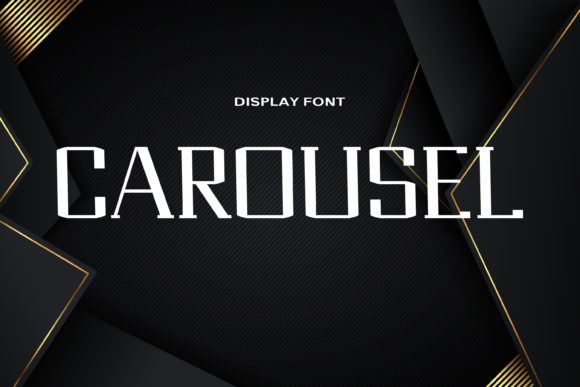
The Power of Carousel Font: Elevate Your Designs with Geometric Flair
I’ll never forget the design project that led me to discover Carousel Font. I was working on a futuristic branding campaign for a tech startup, and I was struggling to find the perfect font to capture their innovative spirit. That’s when I stumbled upon Carousel – a bold and strong lettered display font that instantly brought my ideas to life! In this article, I’ll share my experience with Carousel Font, its features, and how to make the most of it in your designs.
An Honest Review of Carousel Font
So, what makes Carousel Font special? Here are my top loves and a few quirks to consider:
- ✨ Geometric perfection: Carousel’s geometric shapes create a sense of modernity and sophistication.
- ✅ Versatility: This font works beautifully for titles, headings, and even short paragraphs.
- 💥 Impactful: Carousel Font demands attention, making it perfect for bold statements and eye-catching designs.
Now, let’s talk about a few quirks:
- 🤔 Limited legibility: Carousel Font is best used in larger sizes (24px+); it may not be suitable for body text or smaller captions.
- ⚠️ Glyph limitations: While Carousel has a range of glyphs, it may not cover all special characters or languages.
A Practical Guide to Using Carousel Font
The Story Behind Carousel Font
Carousel Font was designed by a team of creatives who aimed to create a geometric, futuristic font that captures the essence of innovation. Inspired by the shapes and lines of modern architecture, Carousel Font brings a sense of dynamism and energy to any design.
| Font Name | Carousel Font |
| What type of designs is Carousel Font best suited for? | Carousel Font excels in futuristic, tech, and innovative designs, such as branding, posters, and digital media. |
| Does Carousel Font support OpenType features? | Yes, Carousel Font supports OpenType features, including glyphs and stylistic alternates. |
| Can I use Carousel Font for body text? | While Carousel Font can be used for short paragraphs, it’s best suited for titles and headings due to its geometric design and potential legibility limitations. |